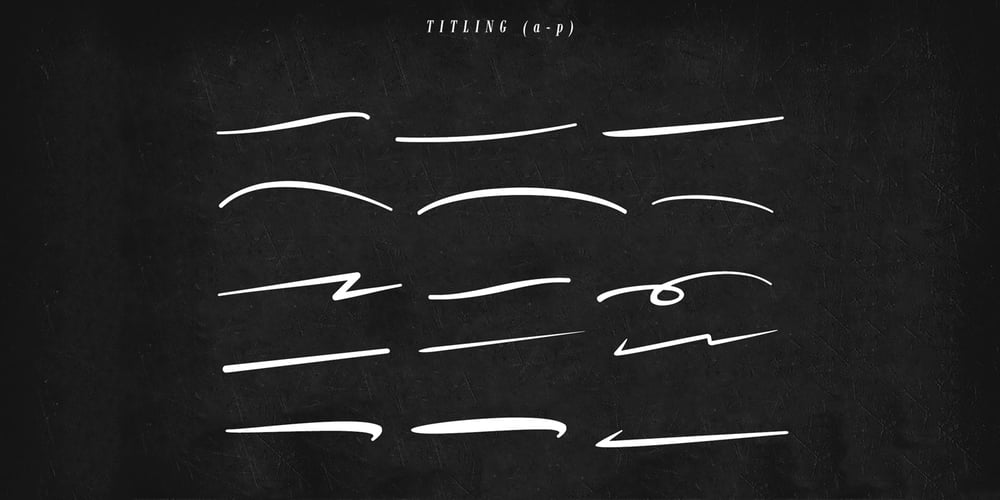
Hobenshaw Font Family was designed by Thomas Aradea and published by Letterara. Hobenshaw contains 1 styles and family package options. Introducing a new hand drawn font carefully crafted with a personal charm. It is a hot font, perfect for a design that stands out even if it’s a logo or simply a stylish text over a background image.